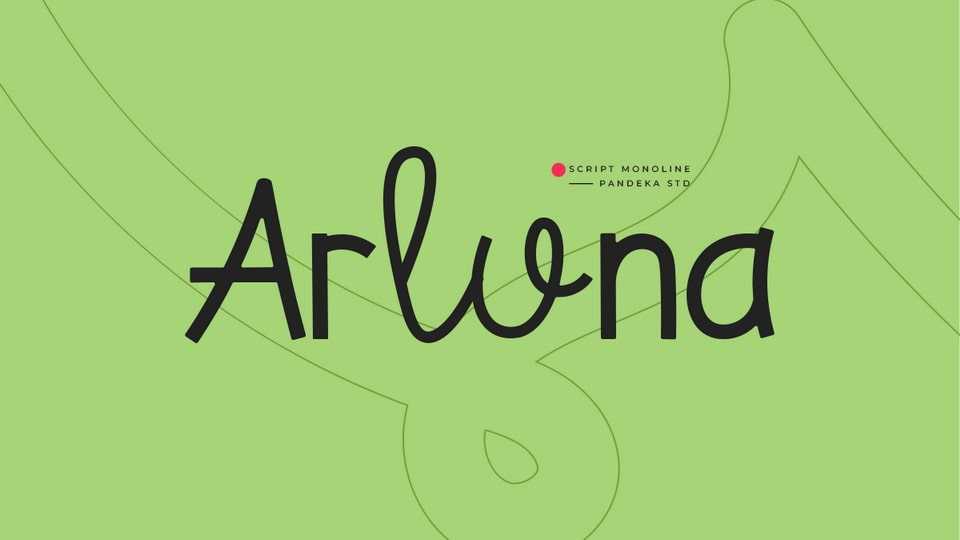
Download Arluna font, a casual modern script typeface with uniquely crafted, flowing letterforms. Arluna adds a charming and sophisticated touch to any design!